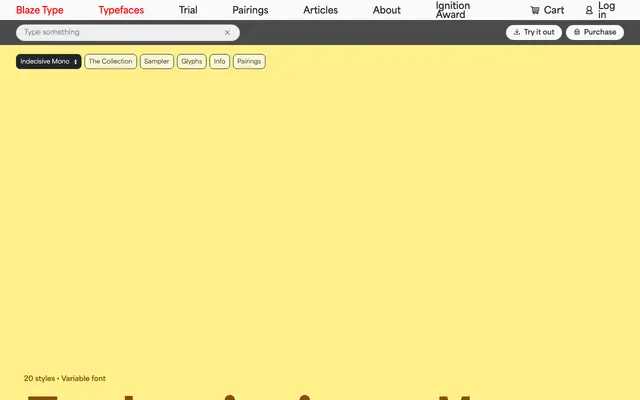
Indecisive Mono
A geometric monospaced family of 20 styles drawing on Bernhard Gothic, Nobel Antieke and Spartan, with swash alternates lifted from old-style italic serifs like Granjon.
Running from Thin to Heavy with slanted counterparts throughout, the family is available as a variable font and covers Latin Extended, Greek and Cyrillic. Standout characters include the /r, /w and swooping out-strokes on the /K and /R, giving it personality without overwhelming a setting. Heavier weights allow strokes to merge for a bolder, more expressive result, while lighter weights hold up well in longer passages of text.
A monospaced typeface drawing on geometric sans-serif sources including Bernhard Gothic and Spartan, with swash alternates derived from old-style italic serifs, placing it firmly in the geometric mono category.